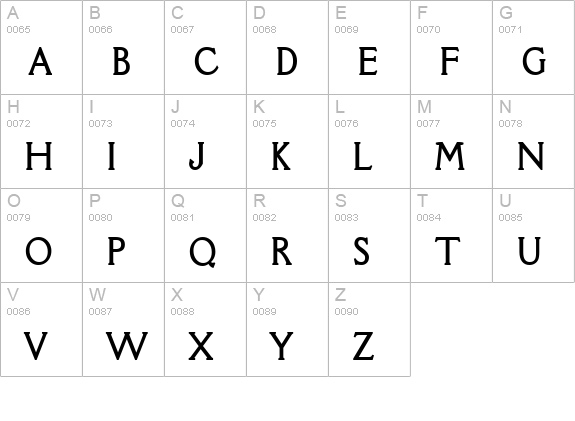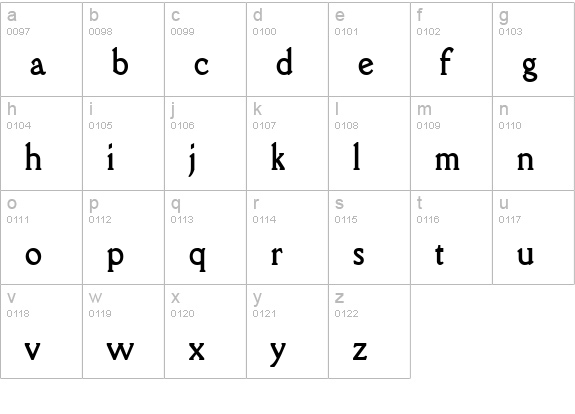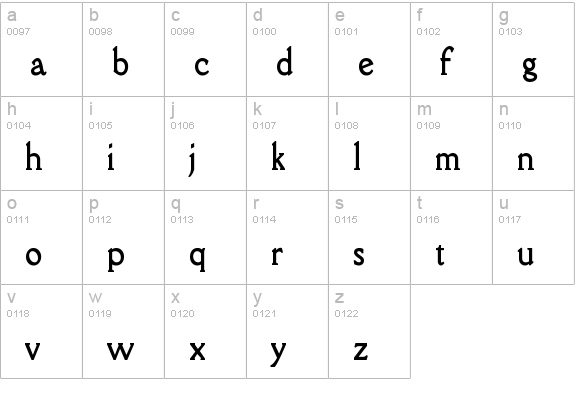
Rory Condensed Bold is a strong, high-contrast, condensed-width variant in the Rory typeface family \xE2\x80\x94 well suited to headlines, attention-grabbing titles, and strong calls-to-action.
Introducing Rory Condensed Bold, a striking and versatile font that exudes confidence and modernity. With its bold and condensed design, Rory is perfect for making a bold statement in your projects. Whether you're designing a sleek branding project, eye-catching advertising materials, or impactful social media graphics, Rory Condensed Bold is sure to stand out. The clean lines and strong curves of Rory Condensed Bold make it a standout choice for headlines, titles, and any text that needs to make a strong visual impact. This font is designed to capture attention and leave a lasting impression on your audience. And the best part? Rory Condensed Bold is available for free download at FontsMarket.com. Now you can elevate your designs with this stunning font without breaking the bank. Don't miss out on the opportunity to add Rory Condensed Bold to your font collection today!